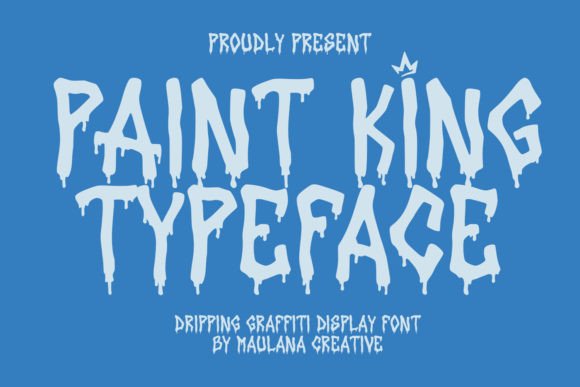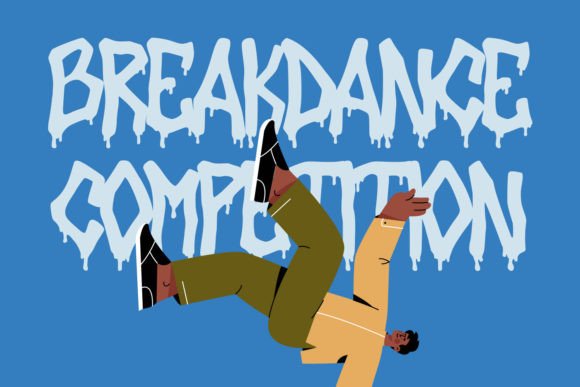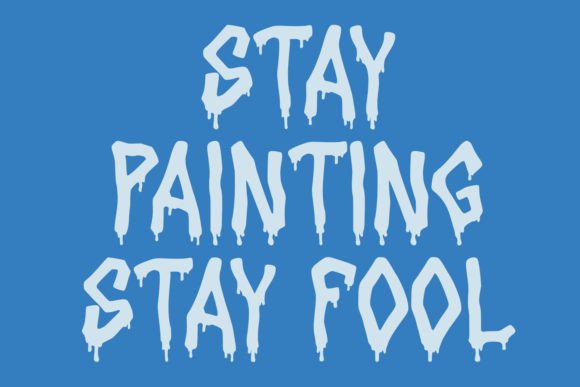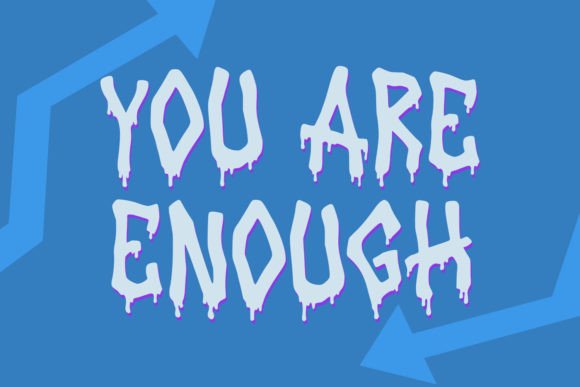
Paint King Font
About the Paint King Font
The Paint King Font offers a perfect balance of form and function for your design needs. Paint King dripping graffiti display font. Heavy stroke, fun character with a bit of ligature. This font is good for logo design, Social media, Movie Titles, Books Titles, a short text even a long text letter and good for your secondary text font with script or serif. Make a stunning work with Paint King dripping graffiti display font.
Paint King excels as a headline font for projects demanding a bold, rebellious aesthetic. Its strong character and dripping effect make it ideal for branding materials targeting a youthful, energetic audience, particularly in contexts like streetwear apparel, music promotions, and edgy graphic novels. Avoid using it for body text or lengthy passages; its heavy weight and unique style hinder readability in extended use.
For optimal visual harmony, pair Paint King with clean sans-serif fonts like Montserrat or Open Sans for supporting text. A contrasting serif like Playfair Display can add sophistication, while a playful script font could further emphasize the fun, graffiti-inspired nature of Paint King. Geometric sans-serifs provide a modern counterpoint to its slightly irregular forms.
The font’s core personality is undeniably bold and playful, yet maintains a degree of sophistication. It’s not suitable for projects requiring elegance or minimalism; however, it perfectly captures a street-smart, vibrant, and attention-grabbing vibe.
Paint King Font Usage Examples
Paint King Font Example